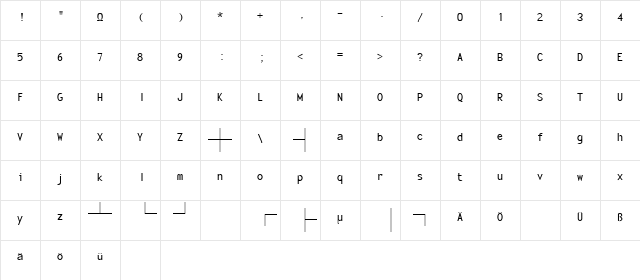
Parameter Plain
Design Context for Parameter Typeface
Parameter is a composed and adaptable typeface that performs quietly and consistently across a wide range of design contexts.